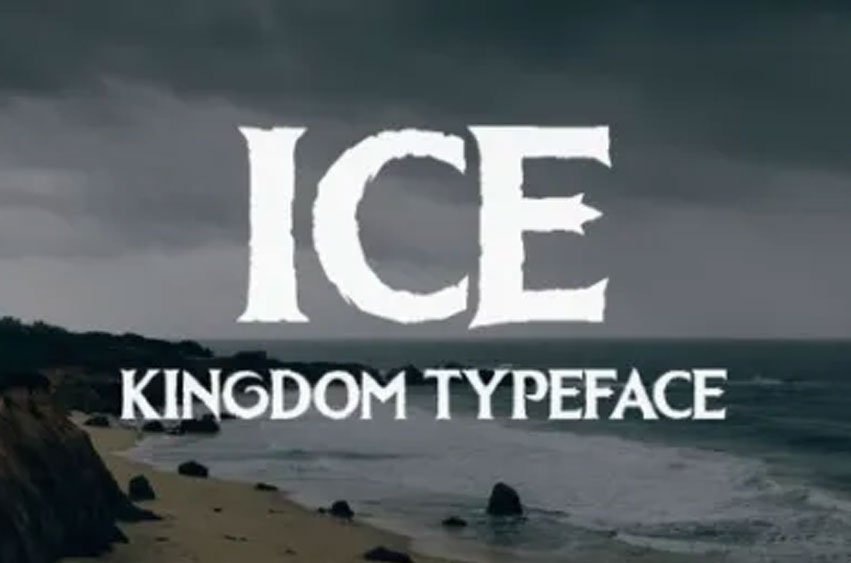
Ice Kingdom Bold Font
Ice Kingdom Bold Font Type your letter with ice kingdom bold font with Elsa’s Ice Powers!
Every letter has a unique and beautiful touch, which will make your design come alive!